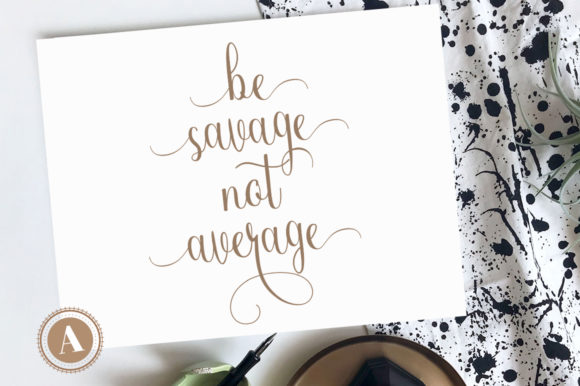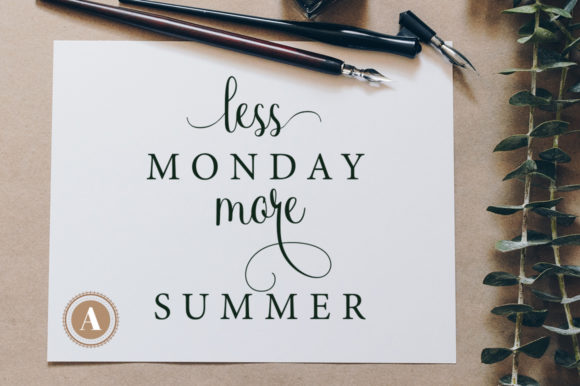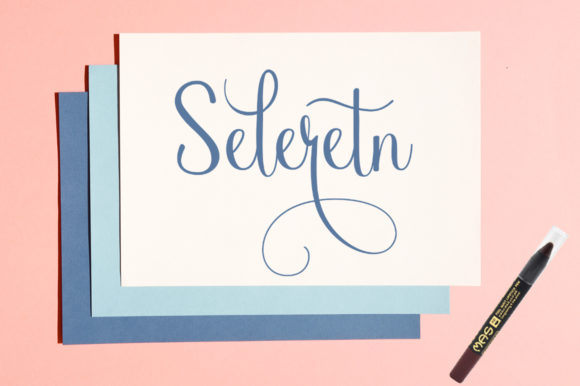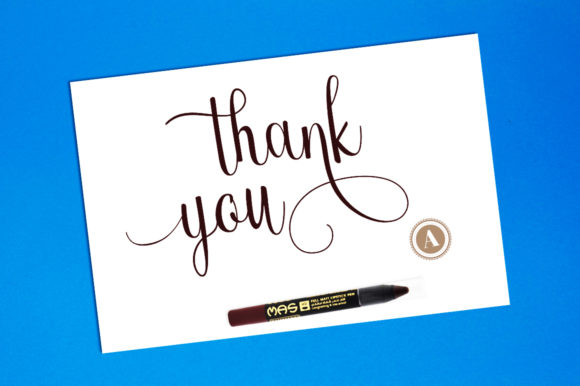
Introduction to Qorlyna Font
Qorlyna is a striking and elegant handwritten font with a sophisticated feel.
Use it to elevate any design project .
Key Features of Qorlyna Font